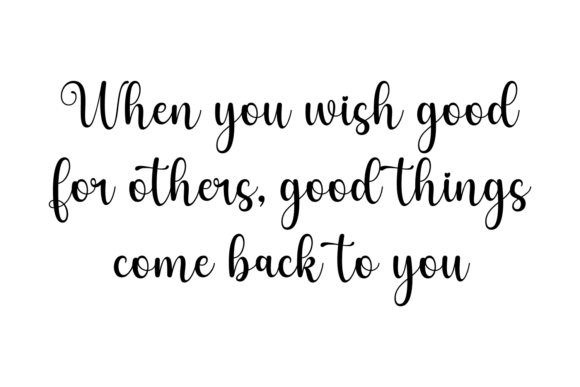
Introduction to Mahony Font
Remember the moment when you stumbled upon the perfect font for your creative project? The one that brought your design to life, and you couldn’t imagine using anything else? That’s exactly what happens when you discover the lovely Mahony Font. This beautiful handwritten font is a treasure trove for designers, offering endless possibilities for crafting unique and eye-catching designs.
Whether you’re working on invitations, greeting cards, logos, or branding materials, Mahony Font is the perfect companion. Its versatility makes it suitable for both formal and informal contexts, allowing you to experiment with different styles and moods. With its transparent background and high-quality design, Mahony Font is a valuable addition to any designer’s toolkit.
Key Features of Mahony Font
- High-quality design: Mahony Font offers a professional and stylish look, perfect for creative projects.
- Transparent background: This feature allows for seamless integration with any background, giving you more design freedom.
- Unique characteristics: Mahony Font features a unique blend of modern and vintage elements, making it an excellent choice for creative projects that require a touch of elegance and sophistication.
- Perfect for design projects: Whether you’re working on a logo, brochure, or website, Mahony Font is an excellent choice for adding a touch of class and sophistication to your design.
Honest Review: Mahony Font
I recently came across the Mahony Font while searching for a suitable design resource for a creative project. The first thing that caught my attention was its clean and elegant appearance, making it perfect for a variety of applications.
Here are some of the things that work well with the Mahony Font:
- ✨ High quality and smooth rendering
- ✨ Supports transparent background, making it ideal for projects with a transparent or semi-transparent design
However, I did encounter a few limitations while working with the Mahony Font:
- ⚠️ Limited font styles and weights, which may not be suitable for complex designs
- ⚠️ Not ideal for large body text due to its relatively small character set
Overall, I’m impressed with the Mahony Font’s design and functionality. While it may not be suitable for every design project, it’s definitely a great resource to have in your collection. I would recommend it for small-scale designs, such as logos, icons, and other creative projects where a high-quality, elegant font is required.
Tips for Getting the Most Out of the Mahony Font
For the best results, use the Mahony Font in a creative project that requires a high-quality, unique font. You can also use the font with a transparent background to create a striking visual effect.
The Mahony Font is suitable for a variety of design projects, including logos, brochures, and business cards. Its high quality and unique style make it a great choice for designers who want to create a professional-looking design.